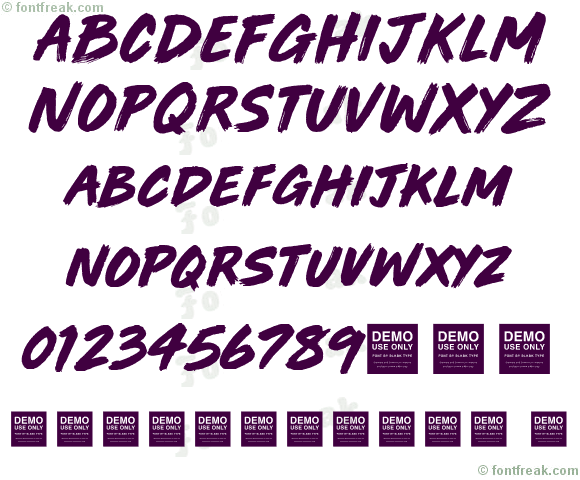
Ultra Fresh
The Ultra Fresh font by BLKBK Fonts is a striking display typeface that embodies a modern, energetic spirit. This sans-serif font features bold strokes and a playful design, making it an eye-catching choice for various creative projects. Its visual characteristics include a thick stroke weight that provides a commanding presence, while the slight contrast in thickness adds a dynamic touch. The spacing is well-balanced, ensuring legibility even at larger sizes, making it ideal for headlines and prominent text.
Ultra Fresh is exceptionally versatile, making it suitable for a range of applications. It works wonderfully for wedding invitations, where its lively personality can add a unique flair. Additionally, it is perfect for movie posters, capturing attention with its boldness and modern vibe. Restaurant menus can also benefit from this font, as it brings a contemporary feel that can enhance the dining experience. Furthermore, content creators and social media marketers will find Ultra Fresh invaluable for promotional graphics, where its vibrant energy can help convey brand identity effectively.
The target audience for Ultra Fresh includes graphic designers, small business owners, and content creators who seek to make a memorable impression through their visual communications. Whether you’re crafting a logo, designing a flyer, or producing digital content, this font can elevate your project.
What sets Ultra Fresh apart is its ability to blend clarity with a playful edge, making it a standout choice in the crowded landscape of typefaces. Its free availability as a freeware font makes it an accessible option for anyone looking to enhance their design toolkit. Don’t miss the opportunity to explore the Ultra Fresh font free download and breathe new life into your creative endeavors.